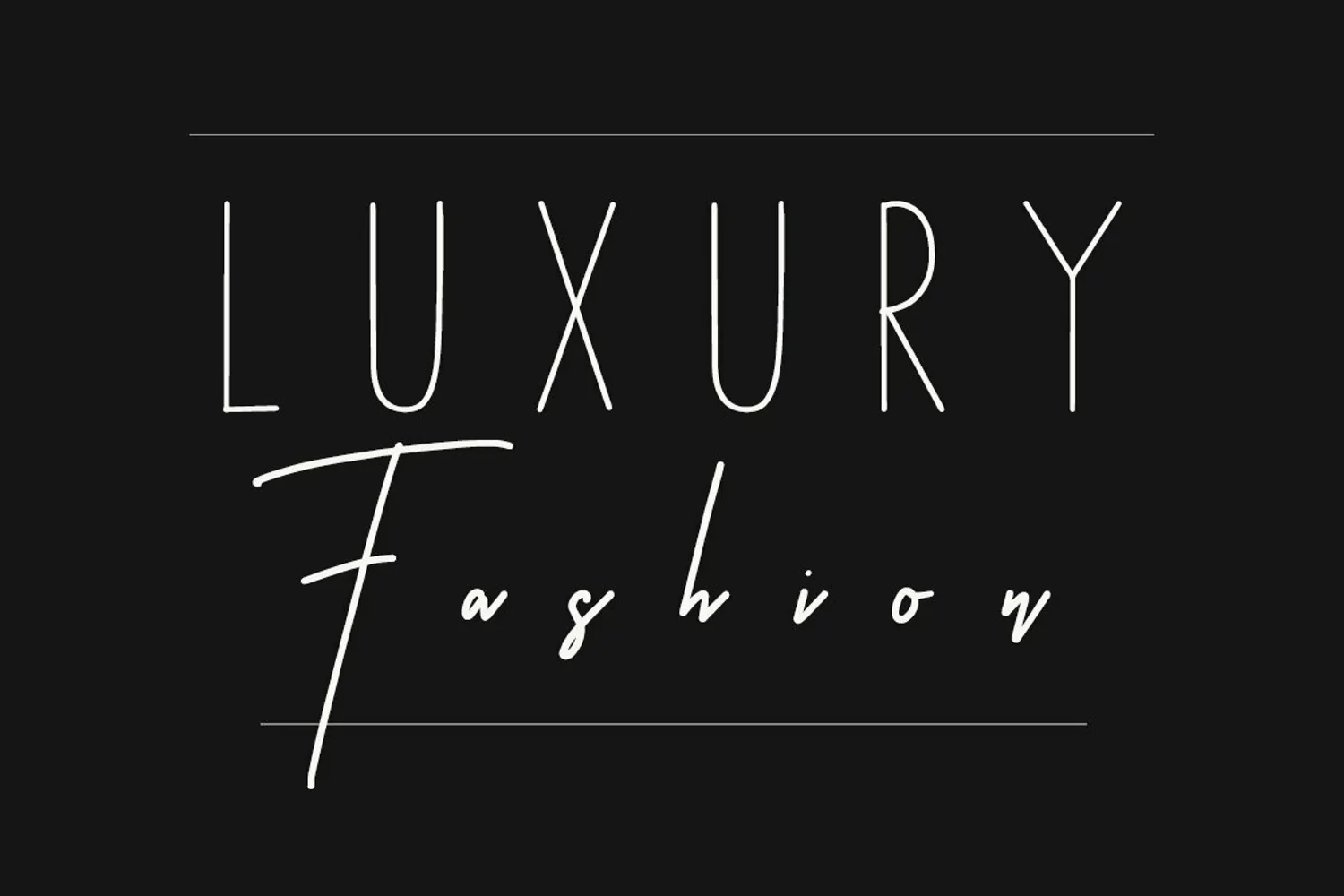
Give your designs an authentic handcrafted feel. "Like Father Like Son" is perfectly suited to signature, stationery, logo, typography quotes, magazine or book cover, website header, clothing, branding, packaging design and more. Included Stylistic Alternates & Ligatures.Use the alternates in Adobe Illustrator and Adobe Photoshop, this is the quick tutorial: